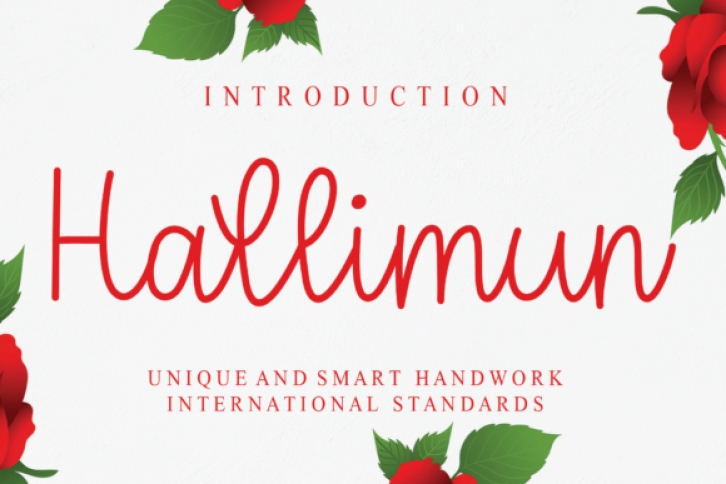
Hallimun is a sweet, elegant and clean handwritten font. It has beautiful and well balanced characters and as a result, it matches a wide pool of designs. Add it to your most creative ideas and notice how it makes them come alive!